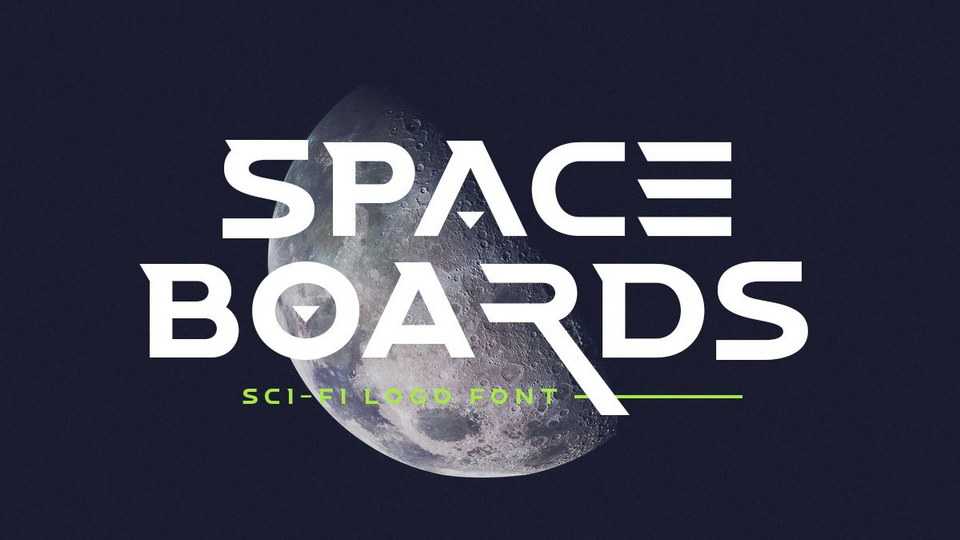
Download Space Boards font, a display typeface that looks futuristic and modern. You can use Space Boards font for any purpose, especially to make hi-tech logotype.